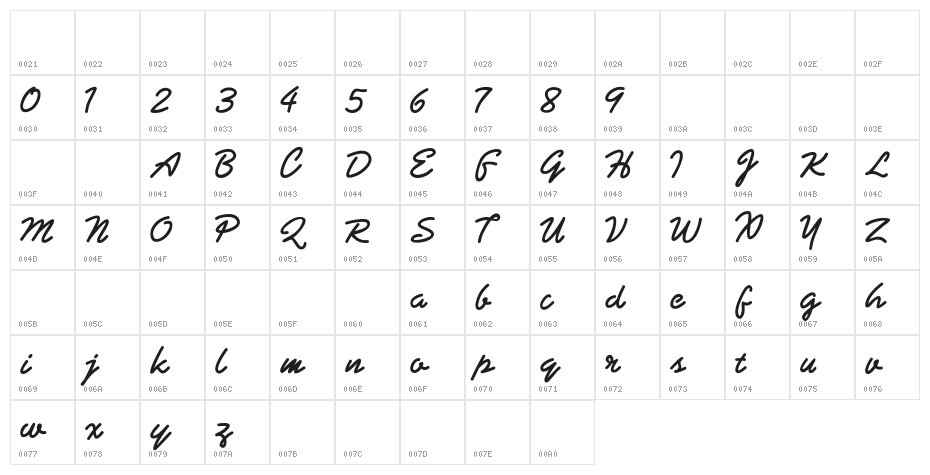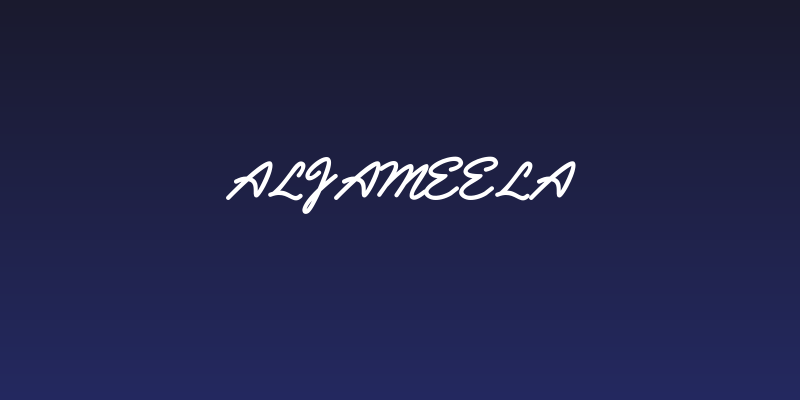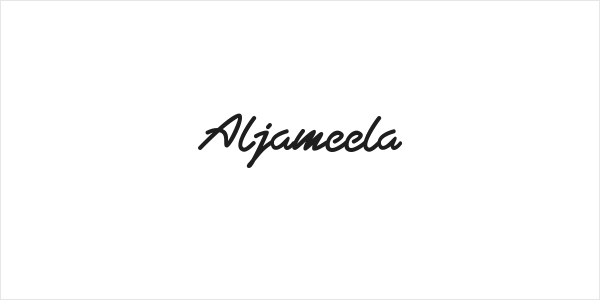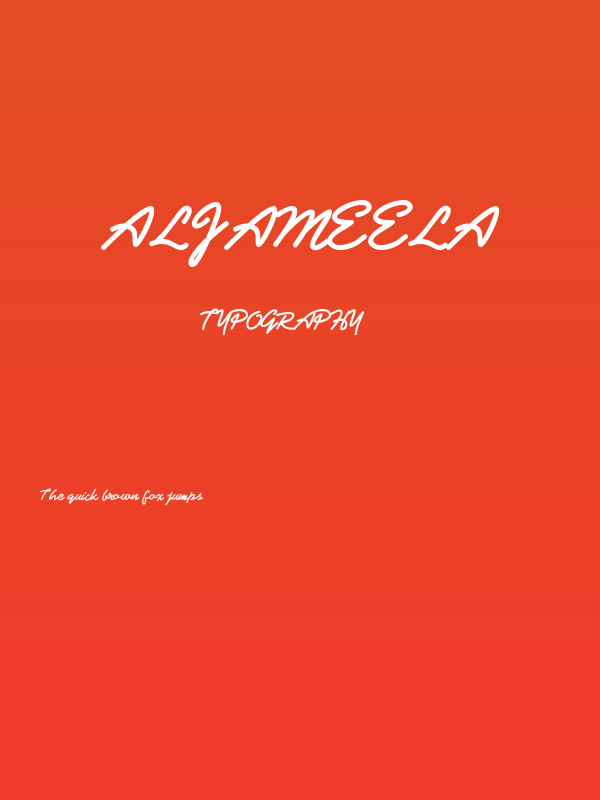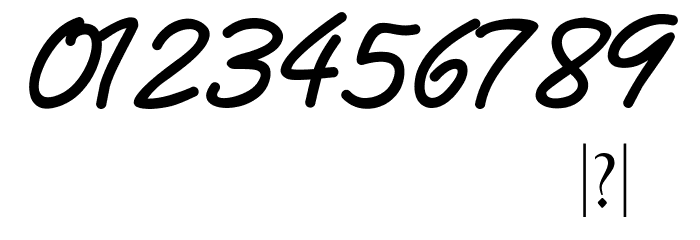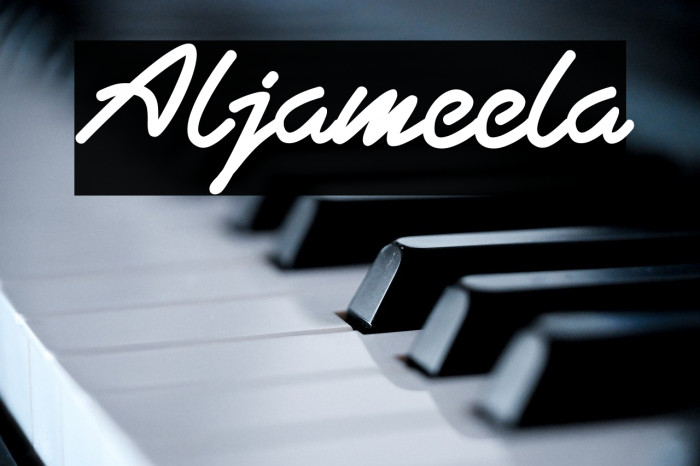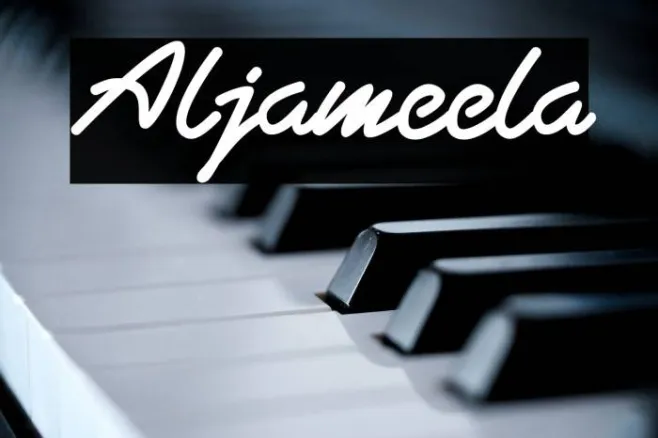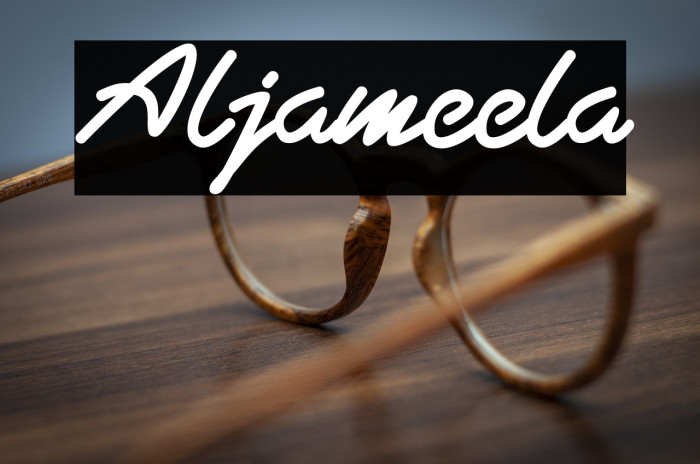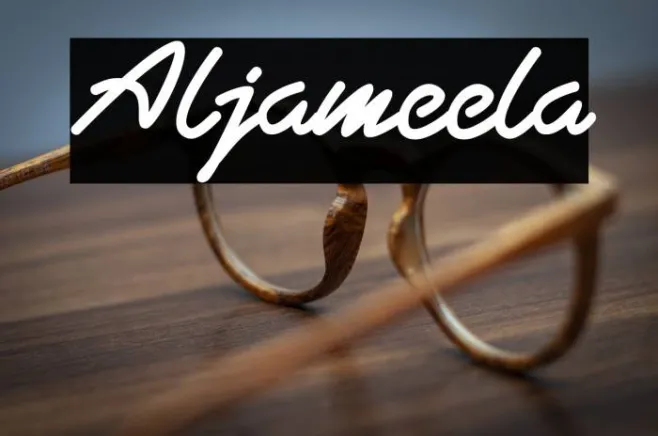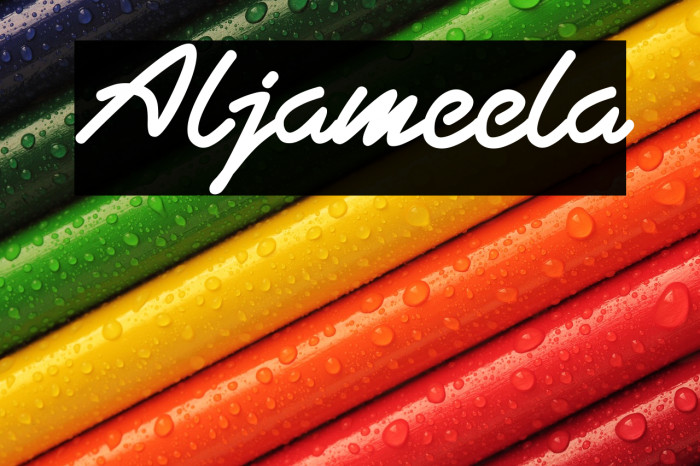
Aljameela Font
Aljameela Description
This font features a dynamic and fluid script style, characterized by its elegant and flowing letterforms. The strokes are smooth and connected, creating a sense of movement and grace. The uppercase letters are bold and prominent, while the lowercase letters maintain a consistent flow, enhancing readability. The numerals are designed with a similar fluidity, ensuring they blend seamlessly with the alphabetic characters. Special characters are crafted with the same attention to detail, adding versatility to the font. Overall, this font exudes a sense of sophistication and creativity, making it ideal for projects that require a personal and artistic touch.
| Overall Style | Elegant, Artistic |